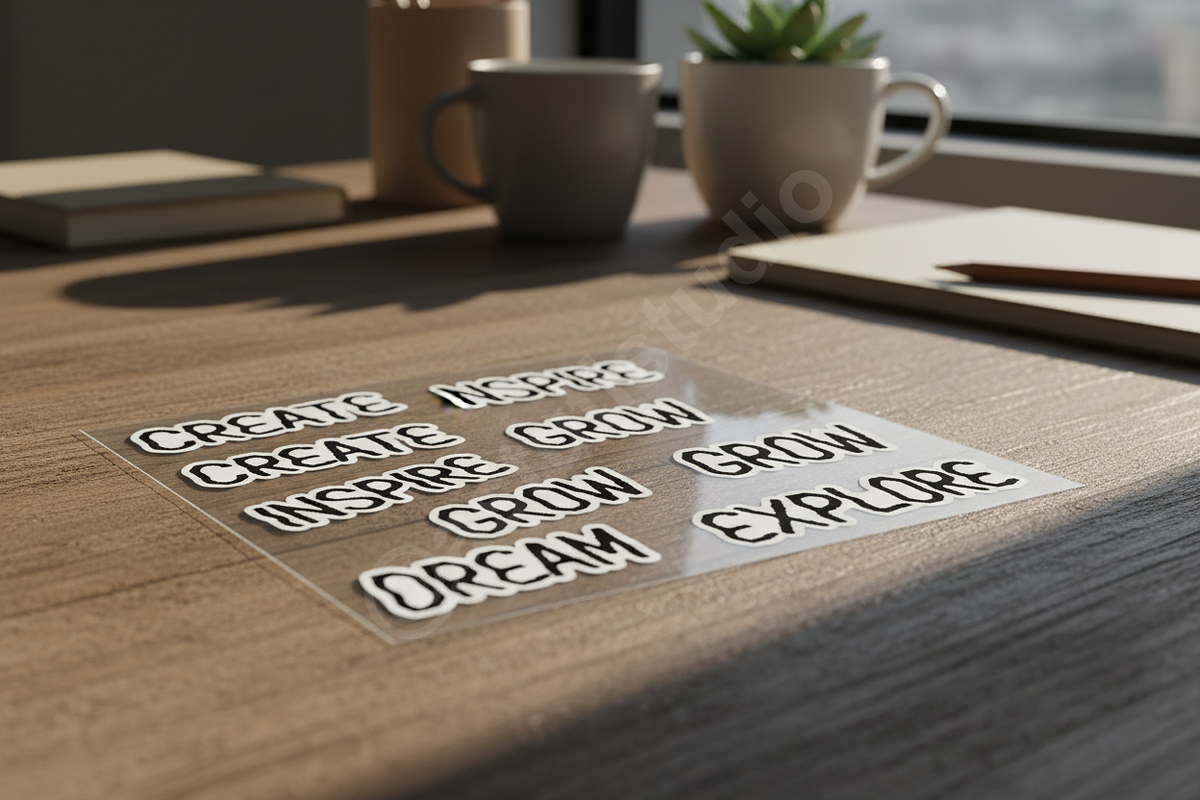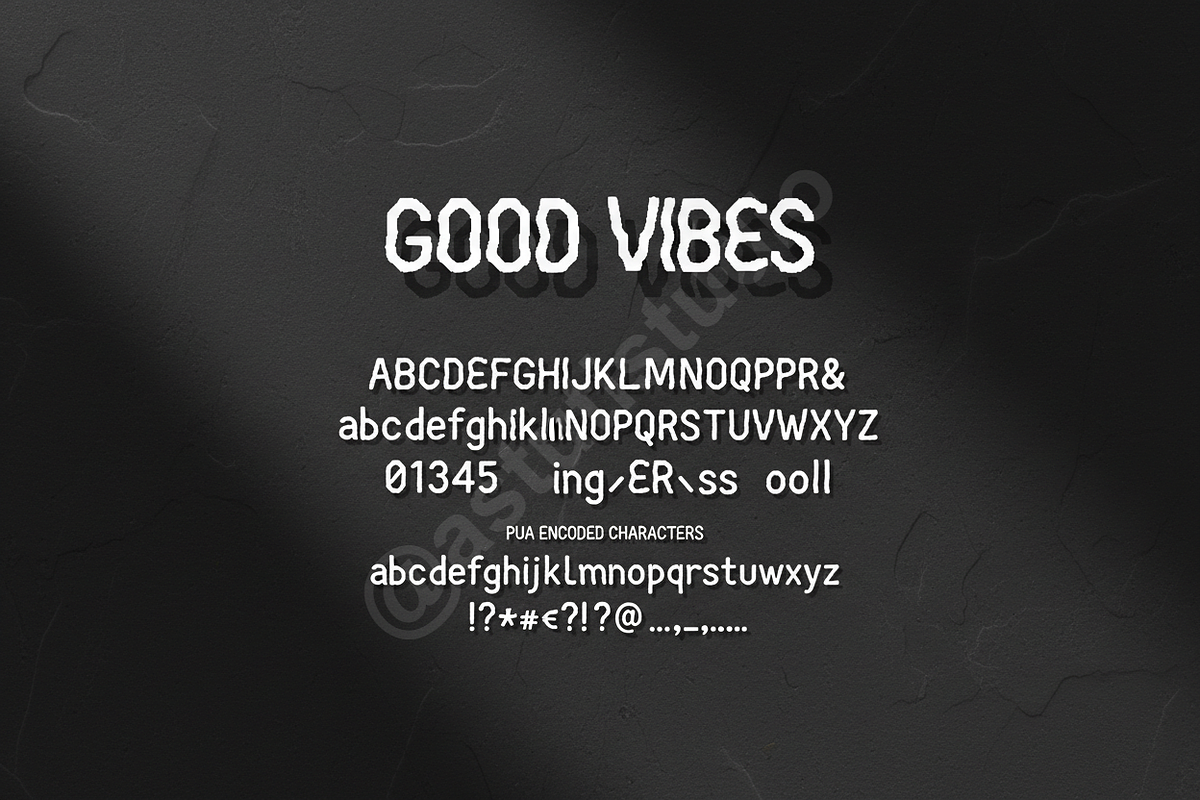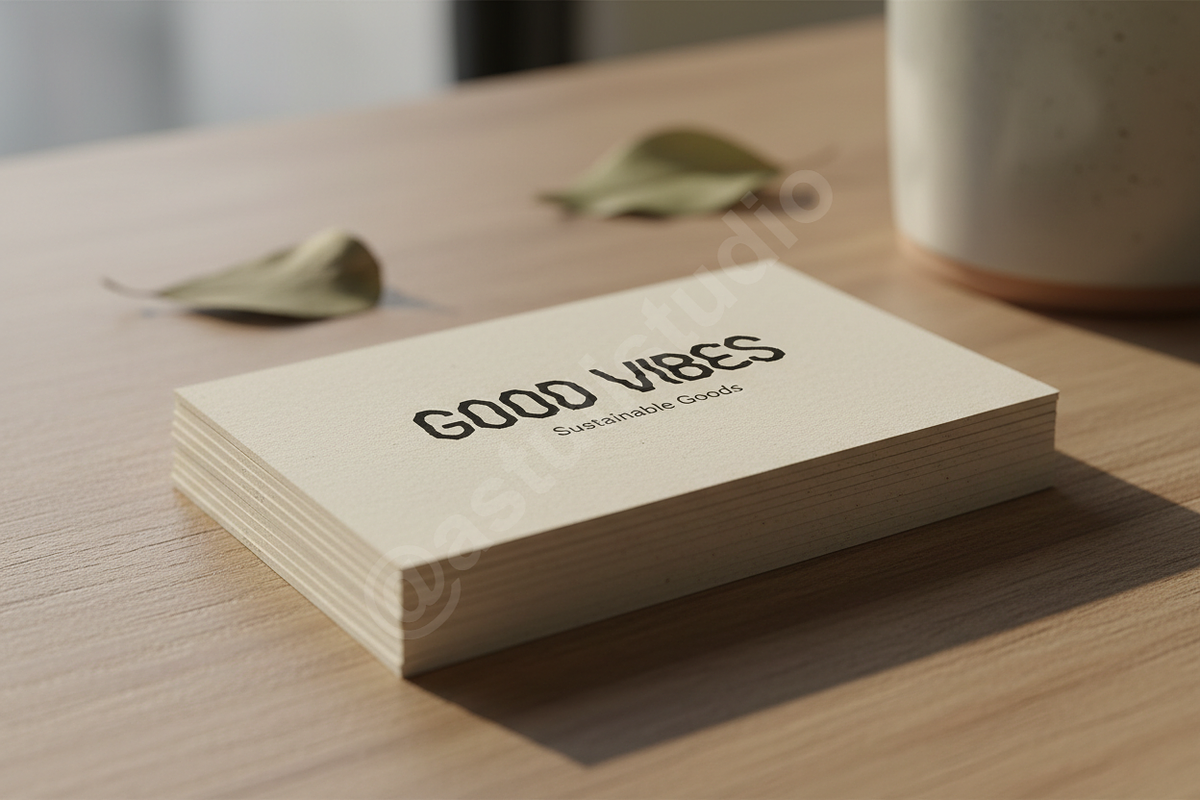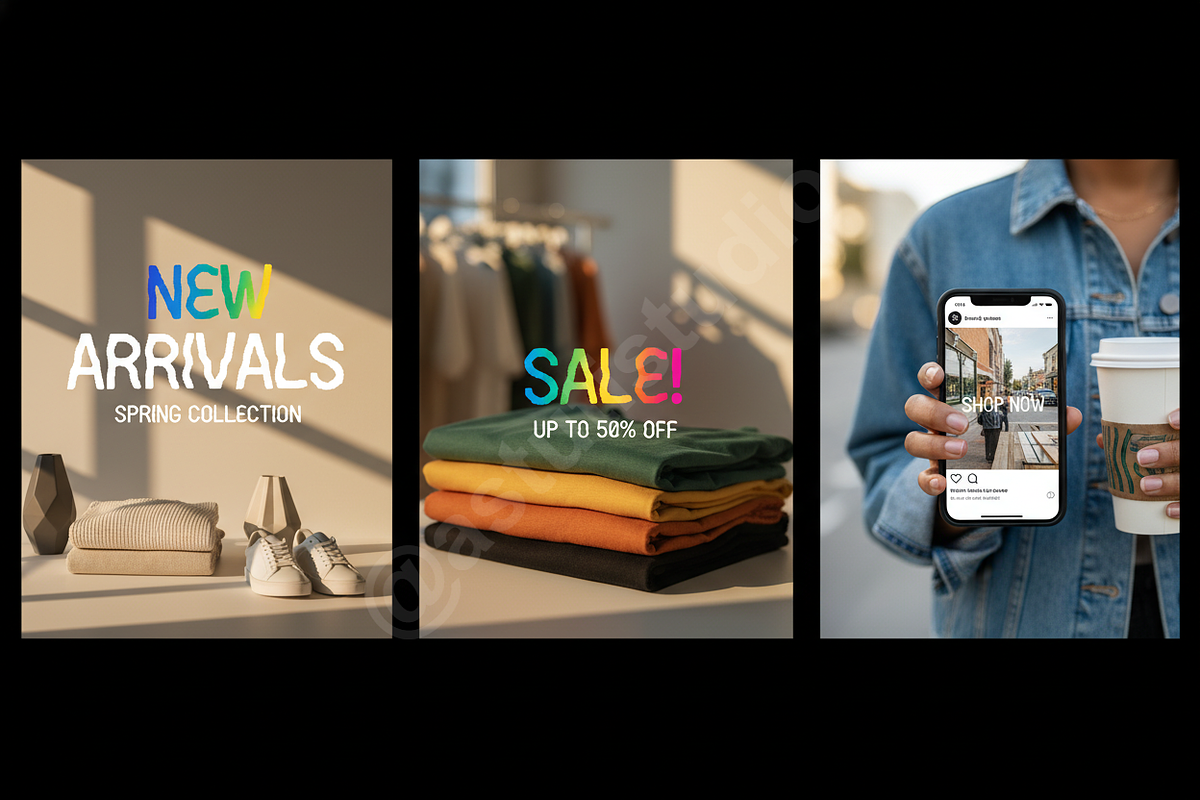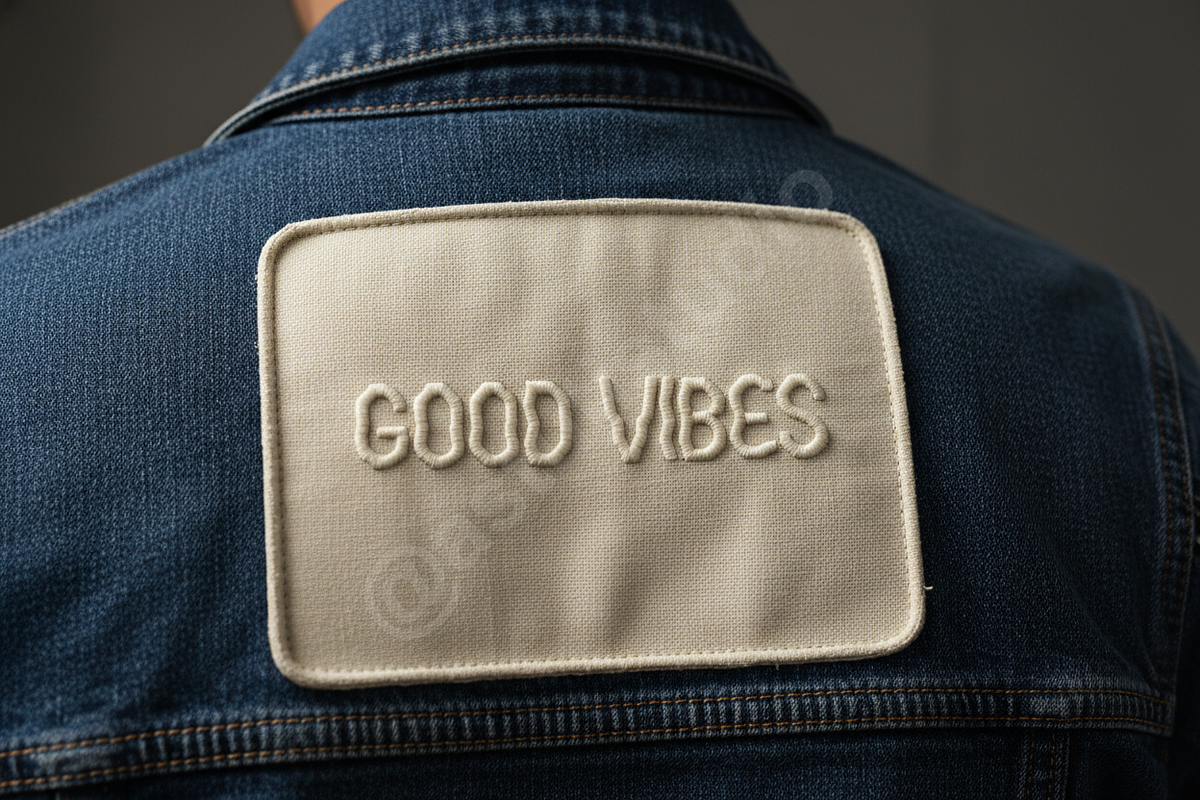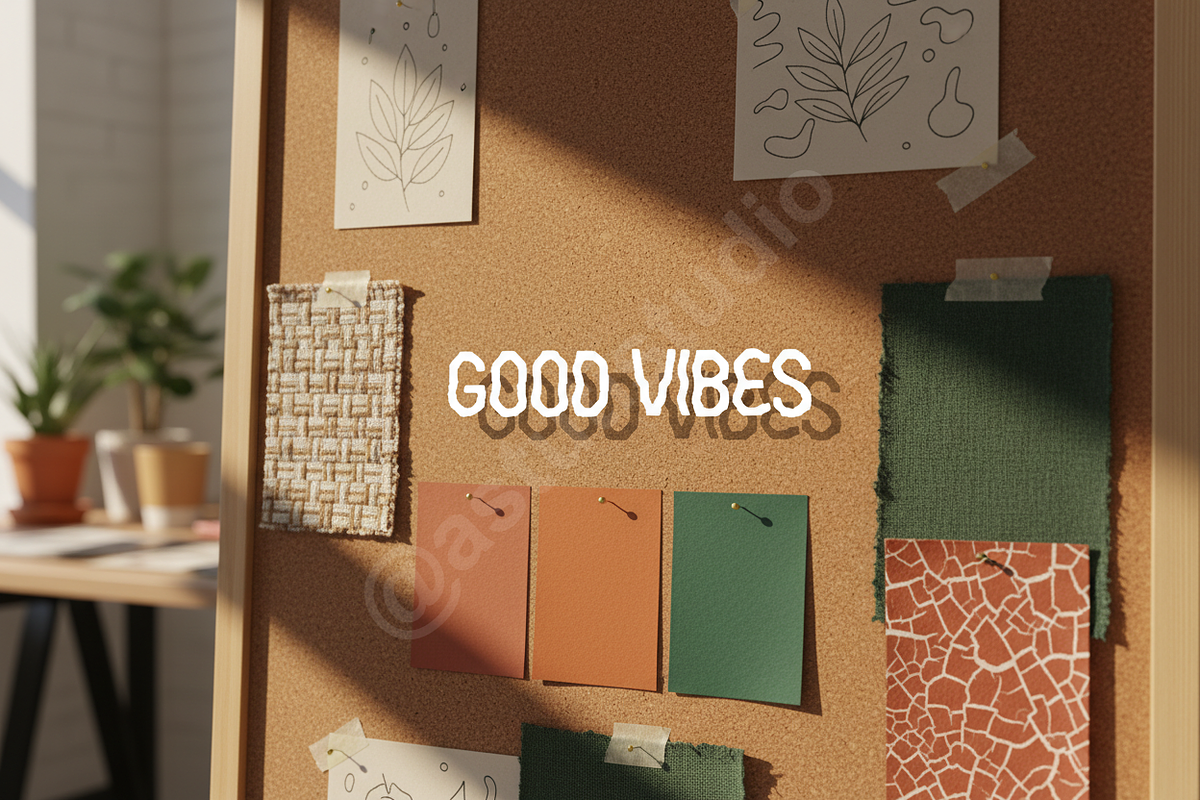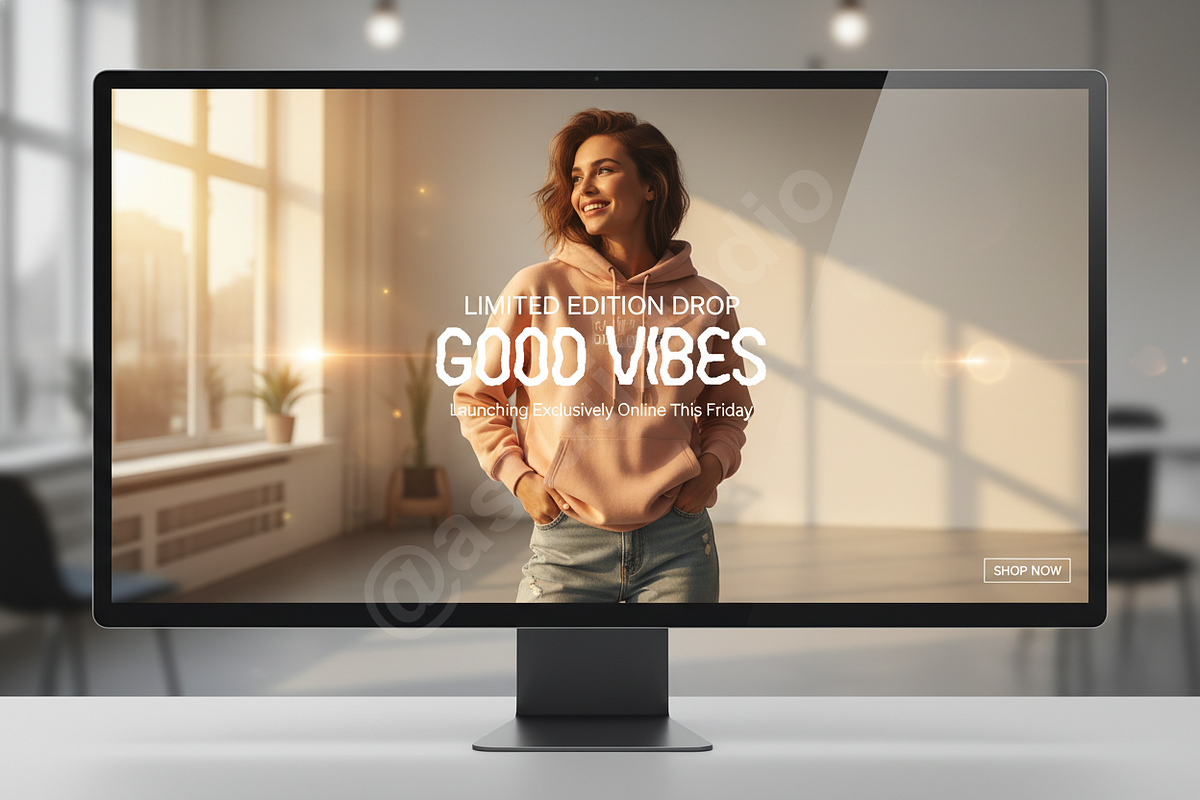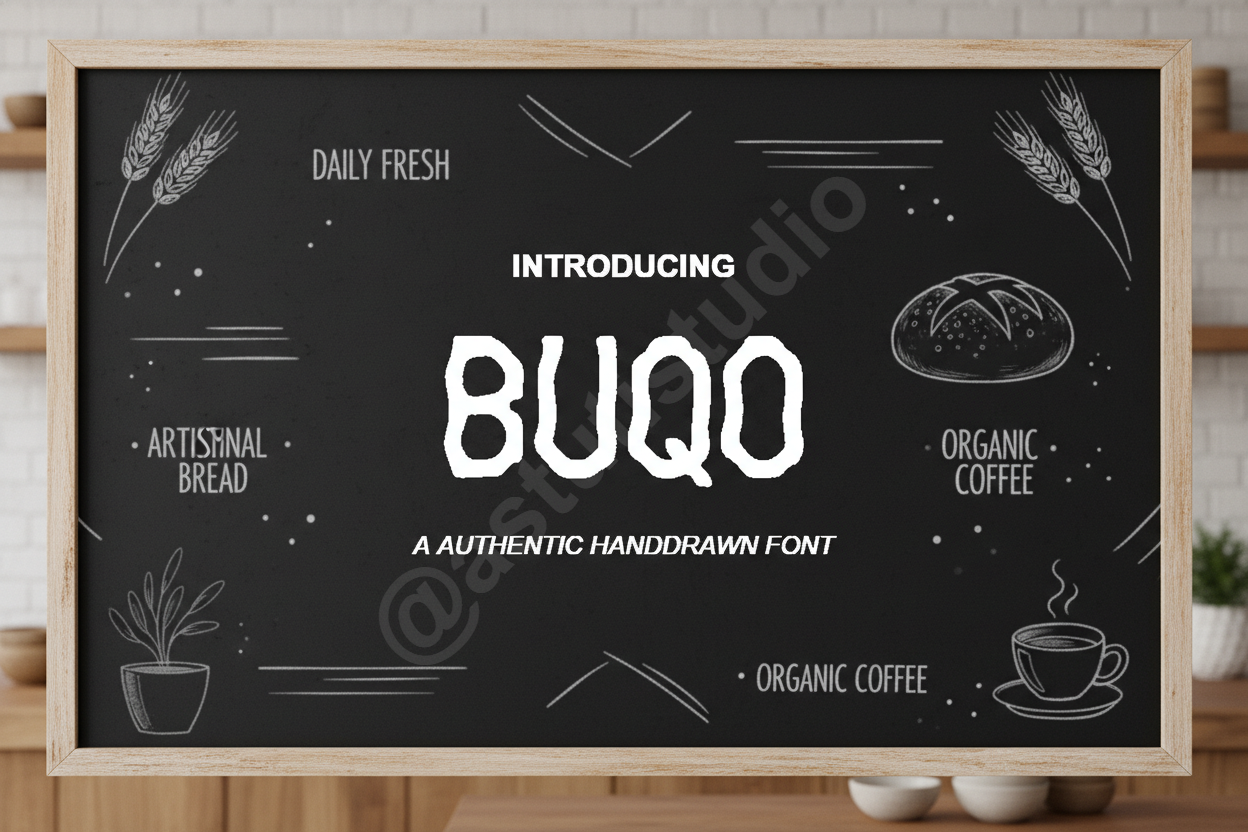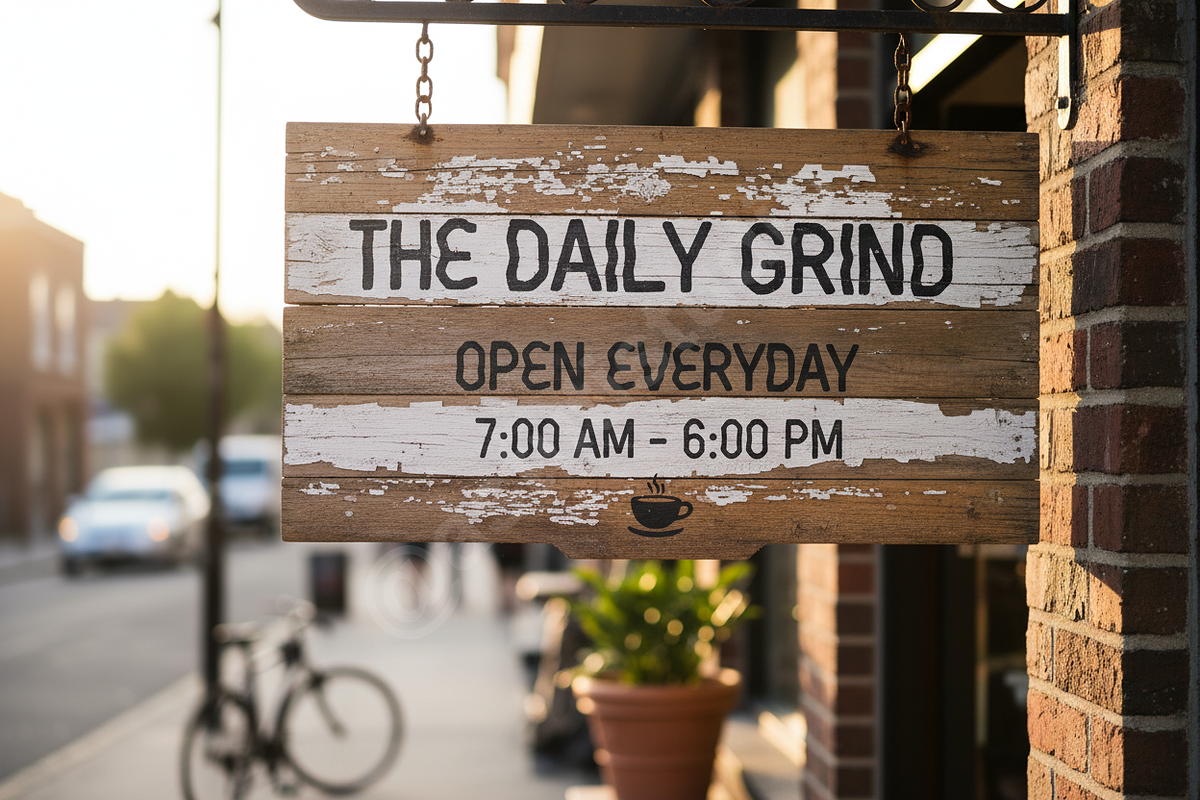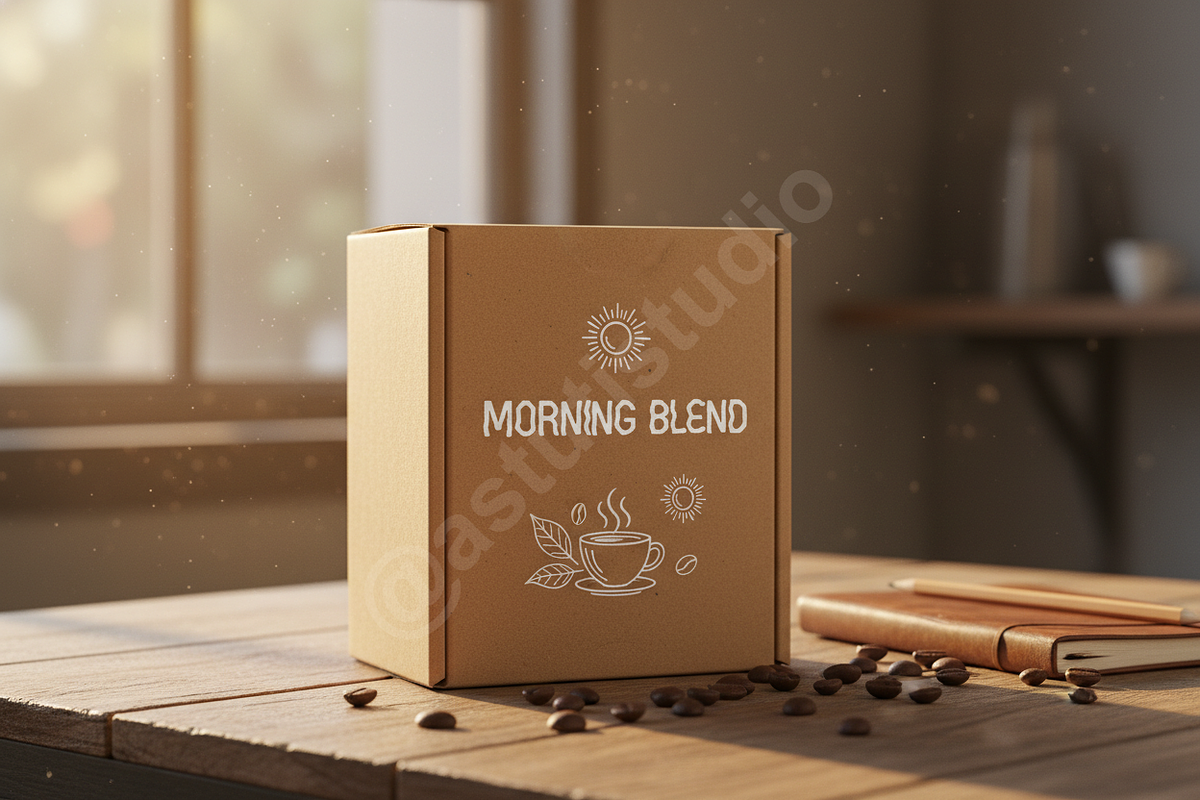
Buqo — Modern Luxury Serif Font for
Introducing Buqo, a sophisticated display serif typeface designed for the discerning creative. Buqo seamlessly merges timeless elegance with contemporary clean lines, making it the definitive choice for projects demanding an air of premium quality. Its balanced weight and graceful curves are engineered to elevate luxury branding, high-fashion editorials, and impactful social media campaigns.
Key Design Features:
- Full OpenType Support: Access advanced typographic features with ease.
- Extensive Ligatures & Alternates: Over 50 unique stylistic sets to customize headlines and logotypes, providing true typographic flexibility.
- Multilingual Punctuation & Character Set: Supports major European languages (over 90+ languages).
- Optimized Kerning: Meticulously adjusted spacing for perfect readability in both display and body text sizes.